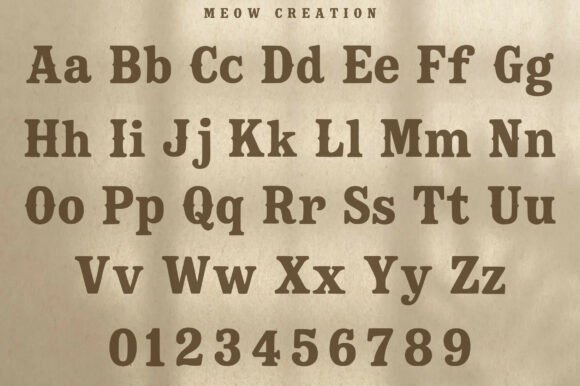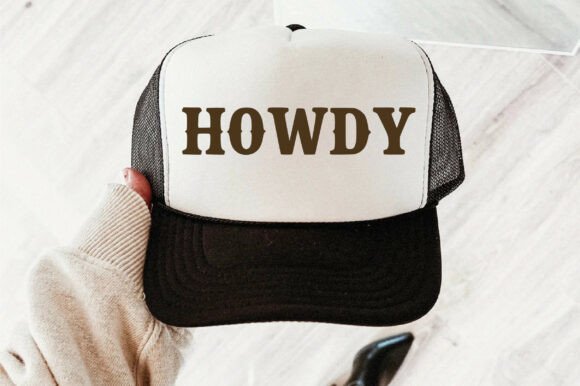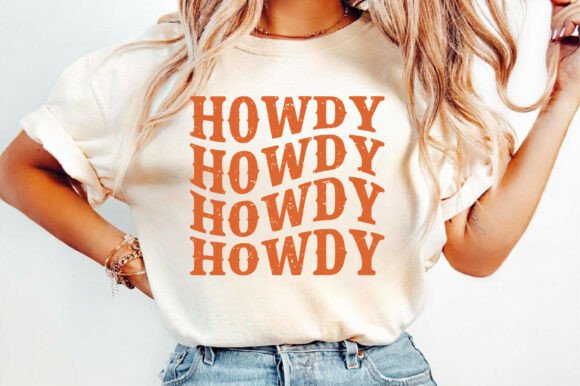
Get Ready to Rodeo with the Dusty Cowboy Font
Have you ever stared at a blank page, feeling like a wild mustang without a clear direction? That’s where I was when I first discovered the perfect font for any cowboy-themed project – the Dusty Cowboy Font. This rugged Western-inspired display font is more than just a typeface; it’s a ticket to the Wild West, where the air is thick with adventure and the typography is as bold as a rodeo rider’s spirit.
The Dusty Cowboy Font is a vintage-inspired masterpiece that brings authentic Western character to any design. Whether you’re creating a country-style invitation or a t-shirt design, this font combines classic cowboy aesthetics with bold readability, making it a timeless choice for designers looking to add a touch of the Wild West to their projects.
Dusty Cowboy Font Key Features
- Font Style: A distressed, vintage-inspired font with a western theme.
- Unique Characteristics: Features a unique blend of worn, distressed textures and ornate details, giving it a one-of-a-kind look that’s perfect for adding a touch of nostalgia and ruggedness to designs.
Dusty Cowboy Font Review
The Dusty Cowboy Font is a bold, wild west-inspired font that’s sure to grab attention. Here are some of its standout features:
- ✨ Unique aesthetic: The font’s distressed texture and cowboy-inspired design elements make it perfect for projects that need a touch of rugged individualism.
- ✨ High versatility: The font comes in a range of weights and styles, making it suitable for everything from logos to body text.
- ✨ Strong branding potential: The font’s bold, attention-grabbing design makes it perfect for creating a strong brand identity.
- ⚠️ Limited legibility: The font’s distressed texture can make it difficult to read at small sizes or in certain contexts.
- ⚠️ Overuse: The font’s bold design can be overwhelming if used too extensively.
Overall, the Dusty Cowboy Font is a great choice for projects that need a bold, attention-grabbing design. While it may have some limitations, its unique aesthetic and high versatility make it a great addition to any designer’s toolkit.
Getting the Most Out of the Dusty Cowboy Font
Use the Dusty Cowboy Font for:
1. Western-themed designs.
2. Vintage-style posters and advertisements.
3. Country or rustic-themed branding.
1. Pair the font with earthy colors for a natural look.
2. Use the font for headlines or titles to add a touch of nostalgia.
3. Experiment with different font sizes and styles to create visual interest.
Alternatives to Dusty Cowboy Font
Great Vibes is a handwritten font with a carefree and adventurous feel. It’s perfect for designs that need a touch of elegance and sophistication. When to use: branding, advertising, and editorial content.
Comparison: Great Vibes has a more refined and polished look compared to Dusty Cowboy Font, which has a more rugged and distressed feel.
Carolyna Pro is a modern script font with a luxurious and high-end feel. It’s ideal for designs that need a touch of sophistication and glamour. When to use: luxury branding, high-end advertising, and premium editorial content.
Comparison: Carolyna Pro has a more refined and elegant look compared to Dusty Cowboy Font, which has a more rugged and casual feel.
Alex Brush is a beautiful script font with a hand-painted feel. It’s perfect for designs that need a touch of whimsy and romance. When to use: wedding invitations, baby announcements, and other special occasion designs.